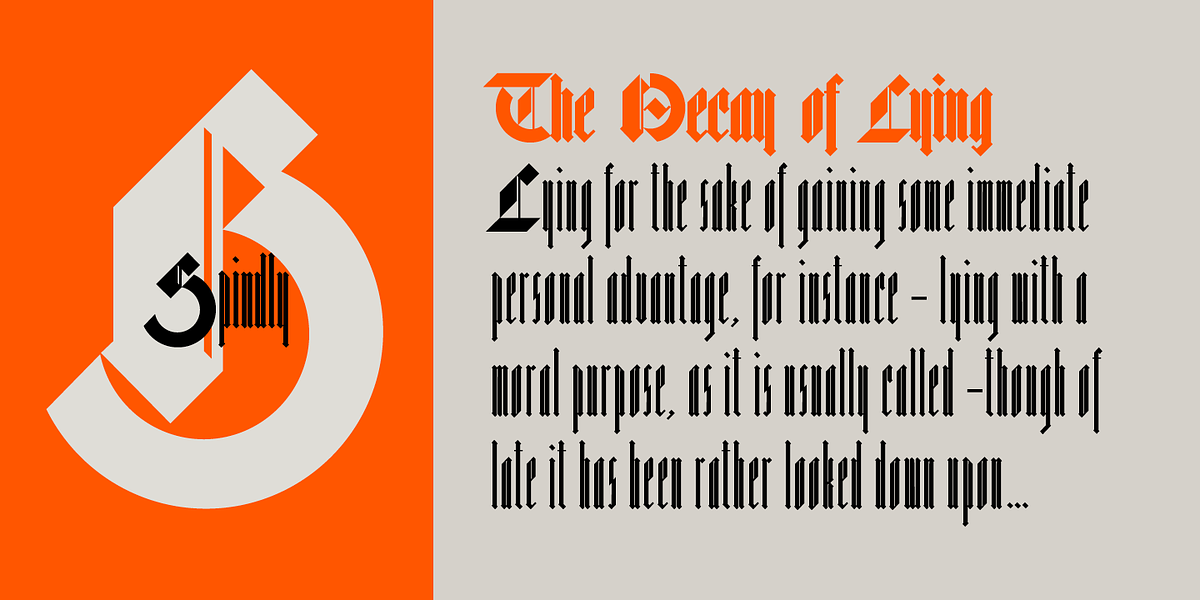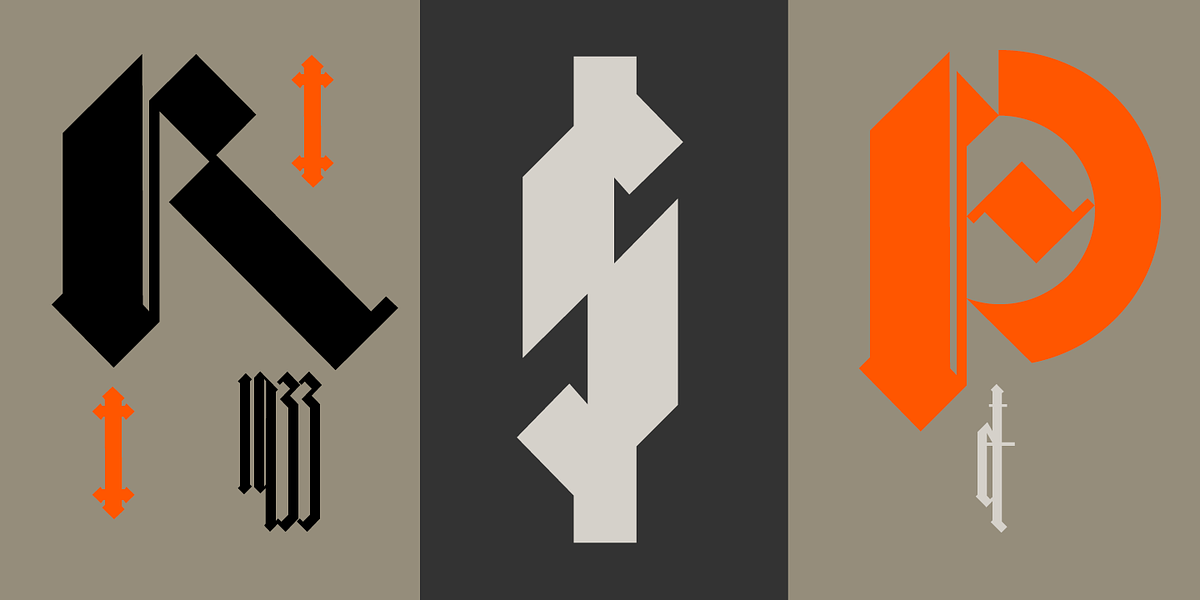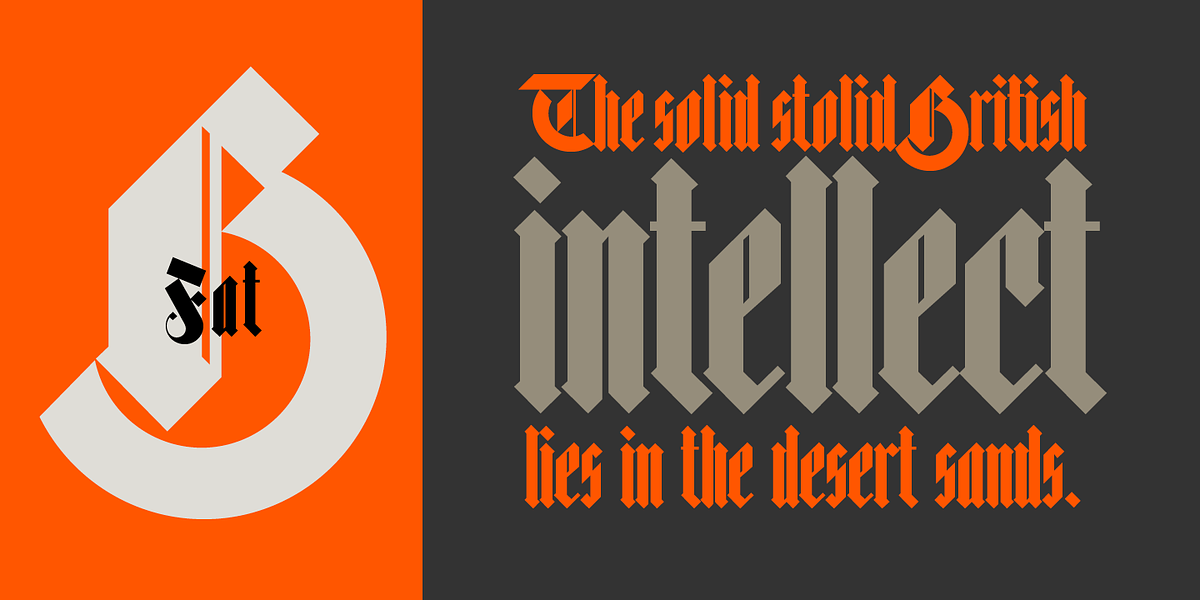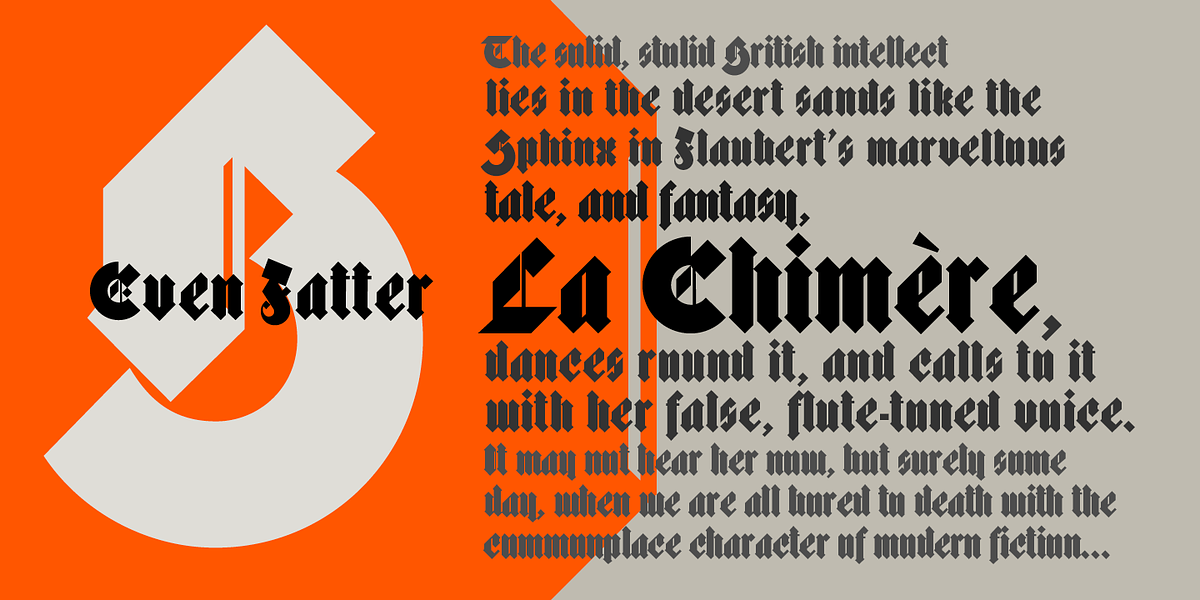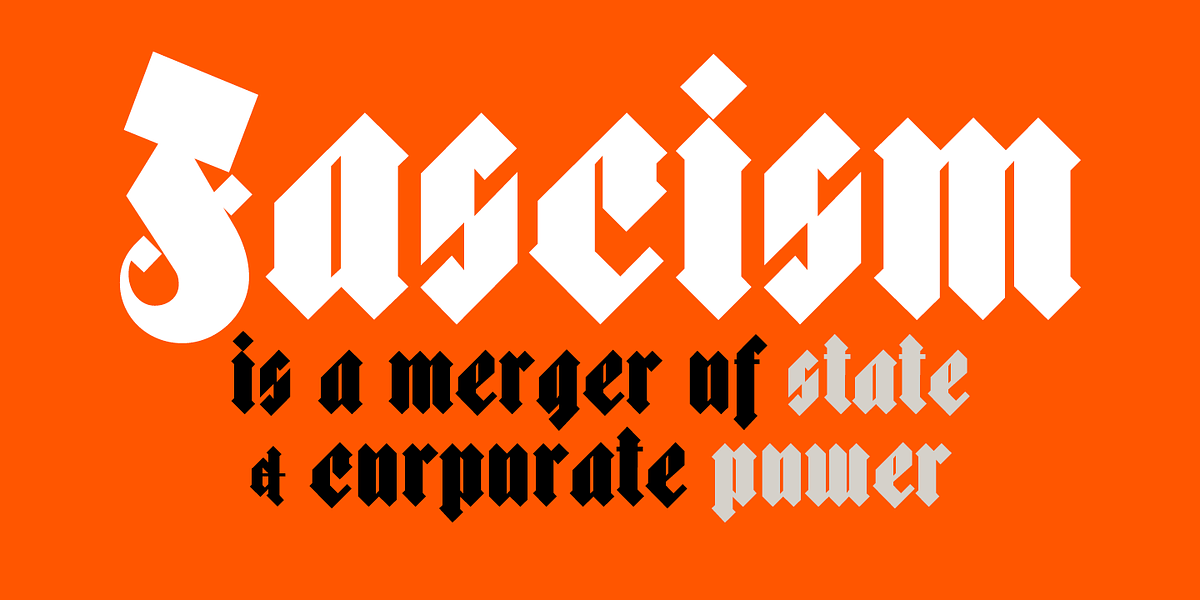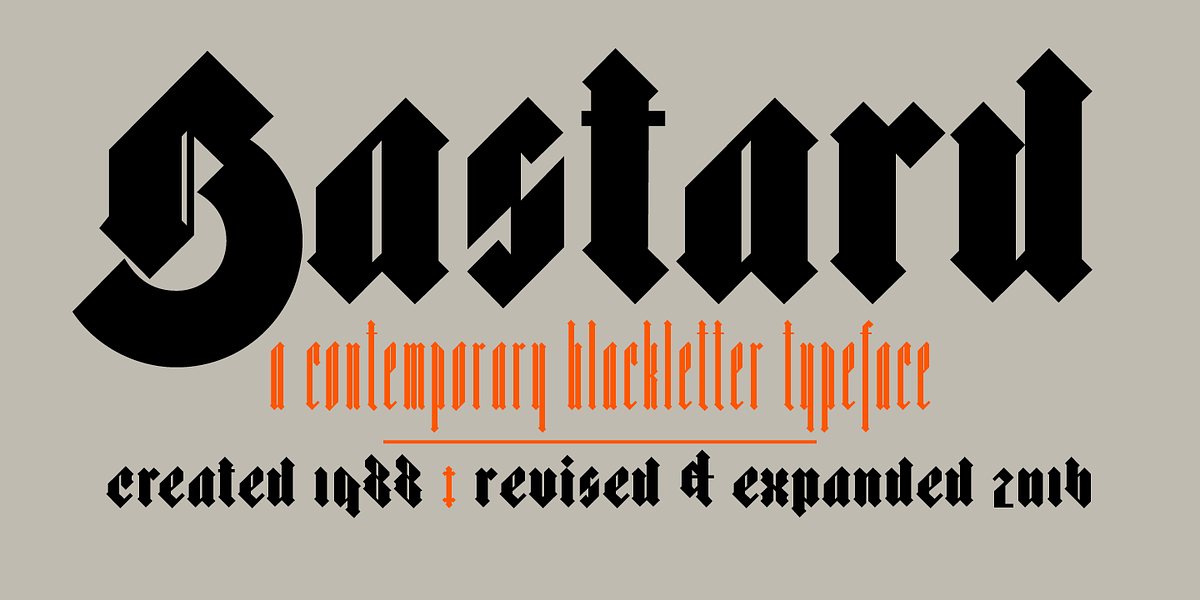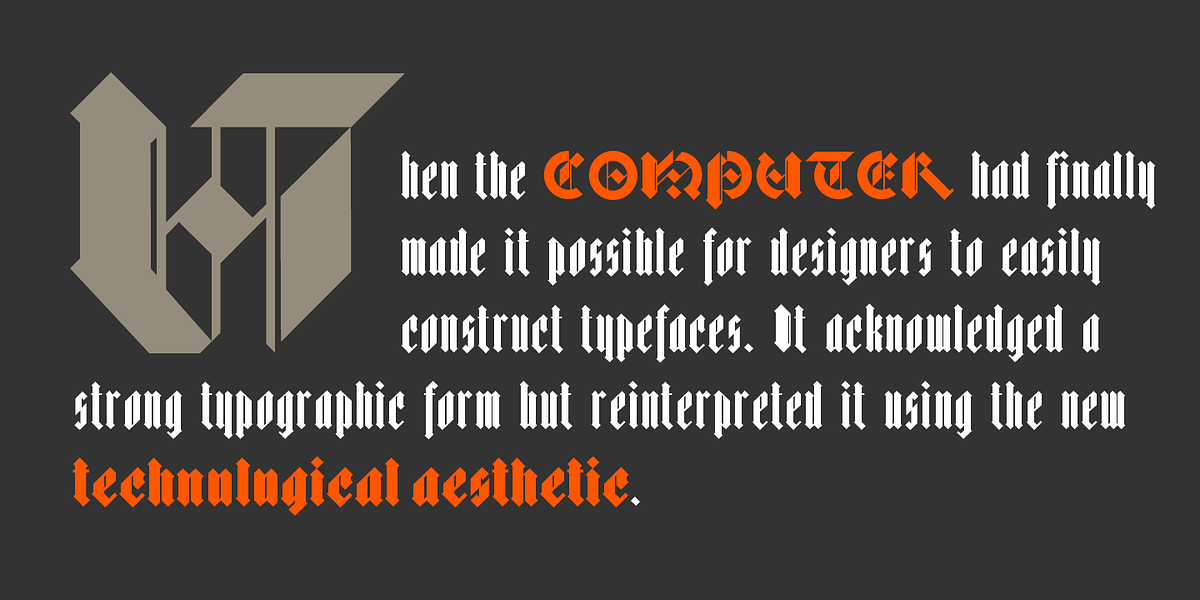
Bastard
Bastard is a blackletter typeface known for its angular and pointed strokes. Created in 1988 and updated in 2016, it's considered one of the first blackletter fonts designed using a personal computer.